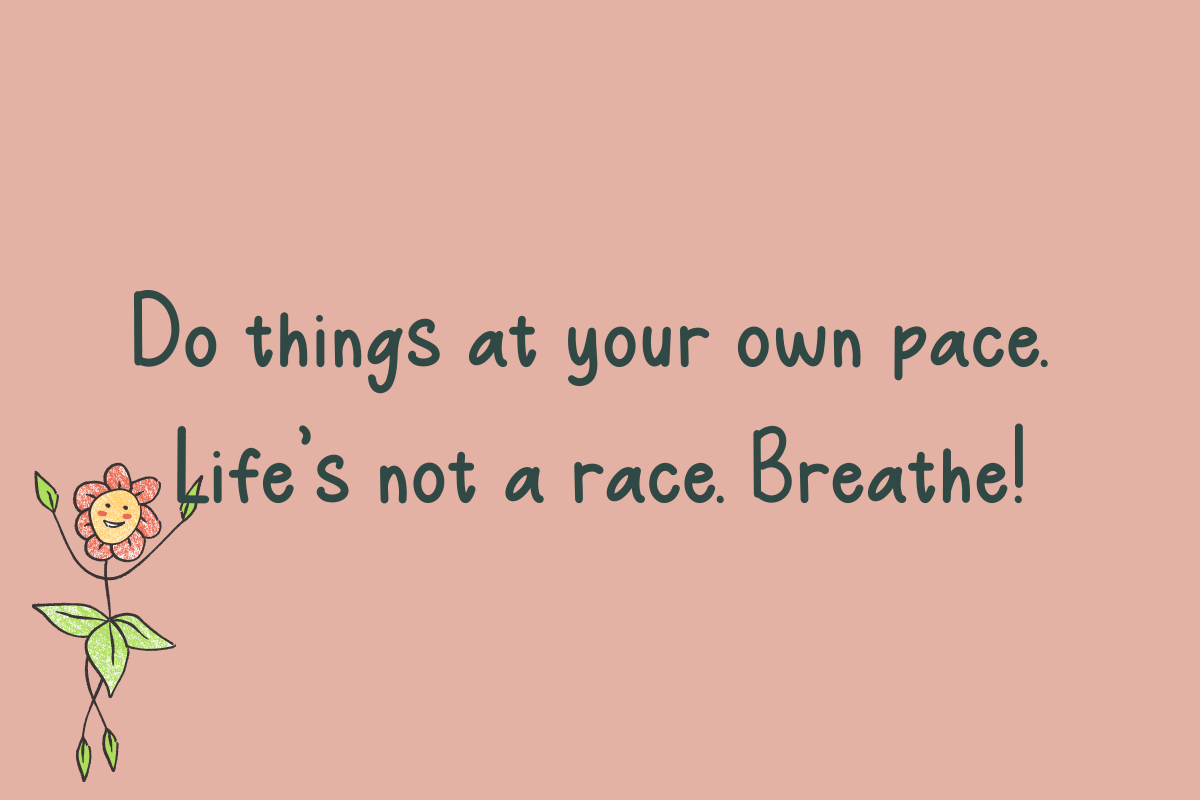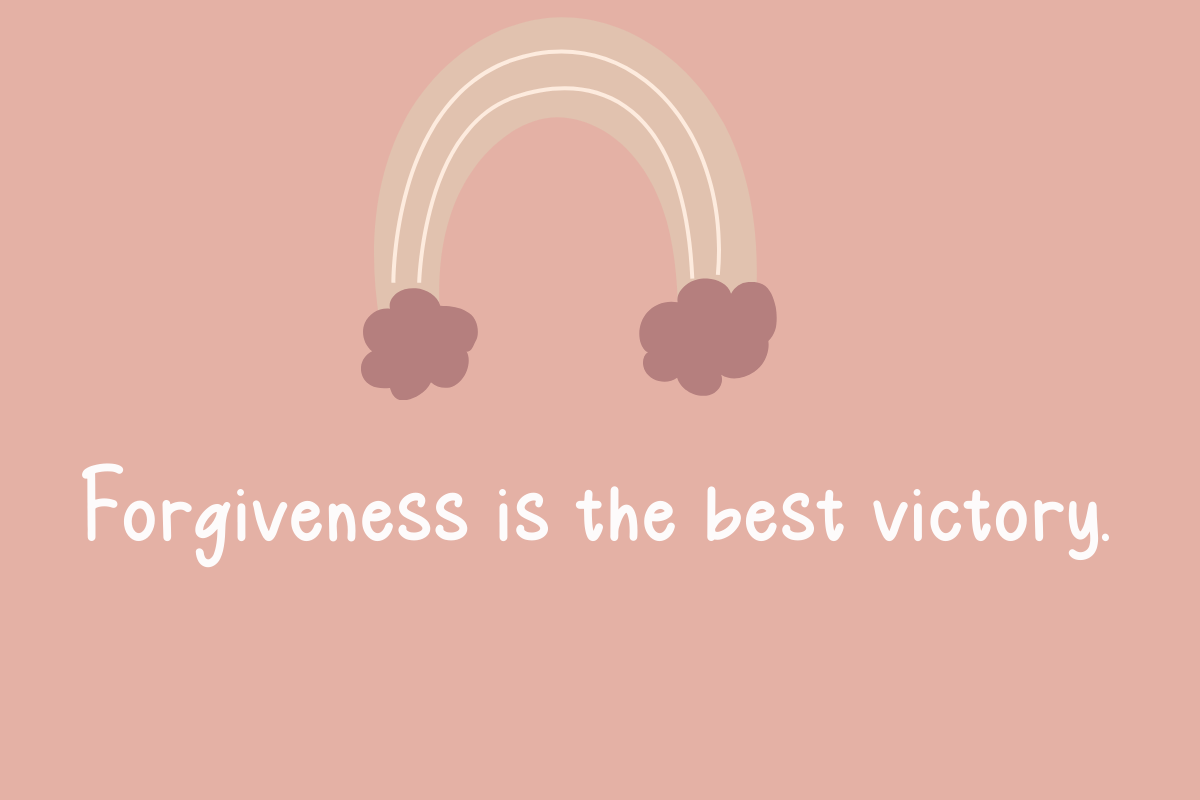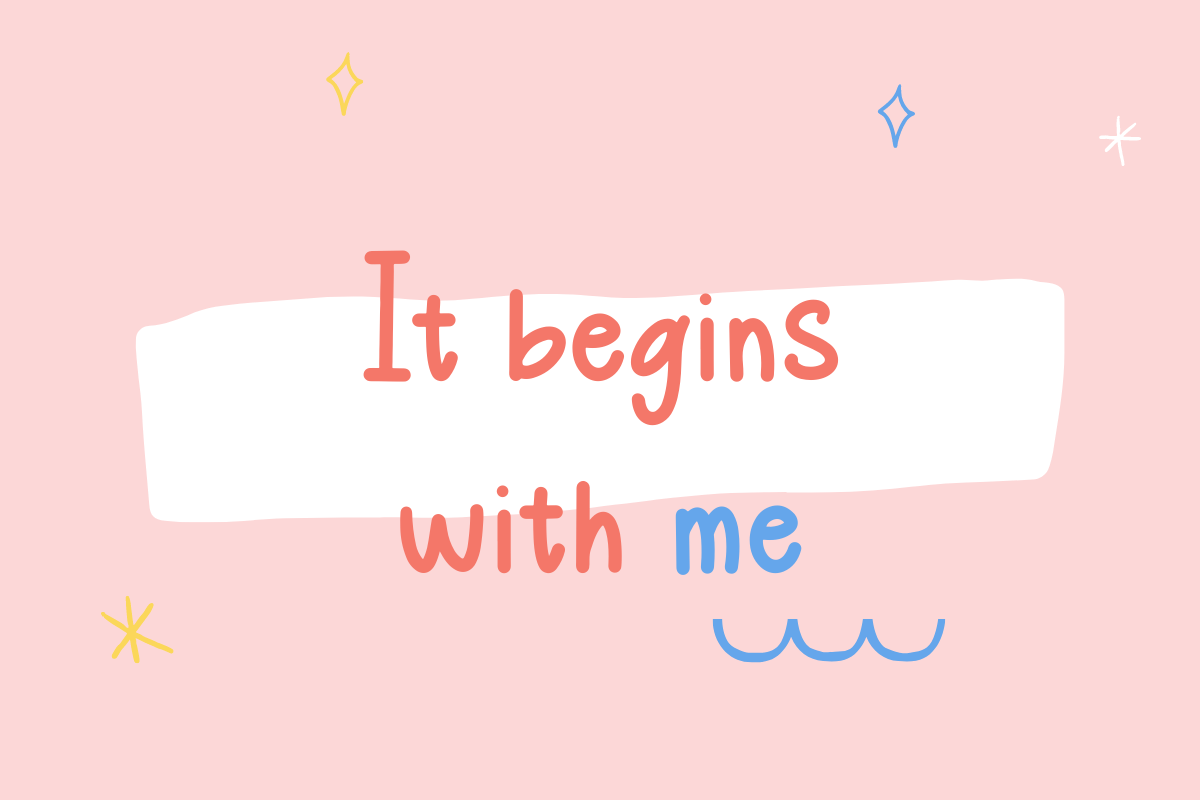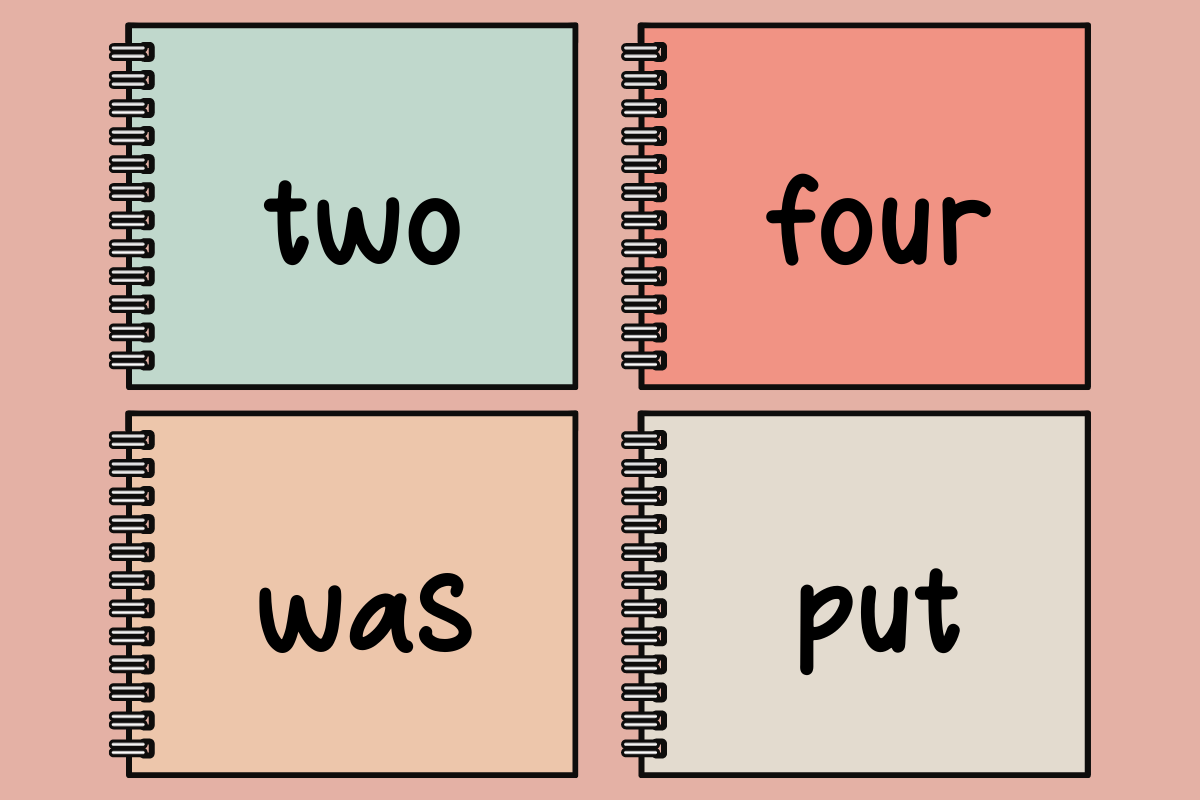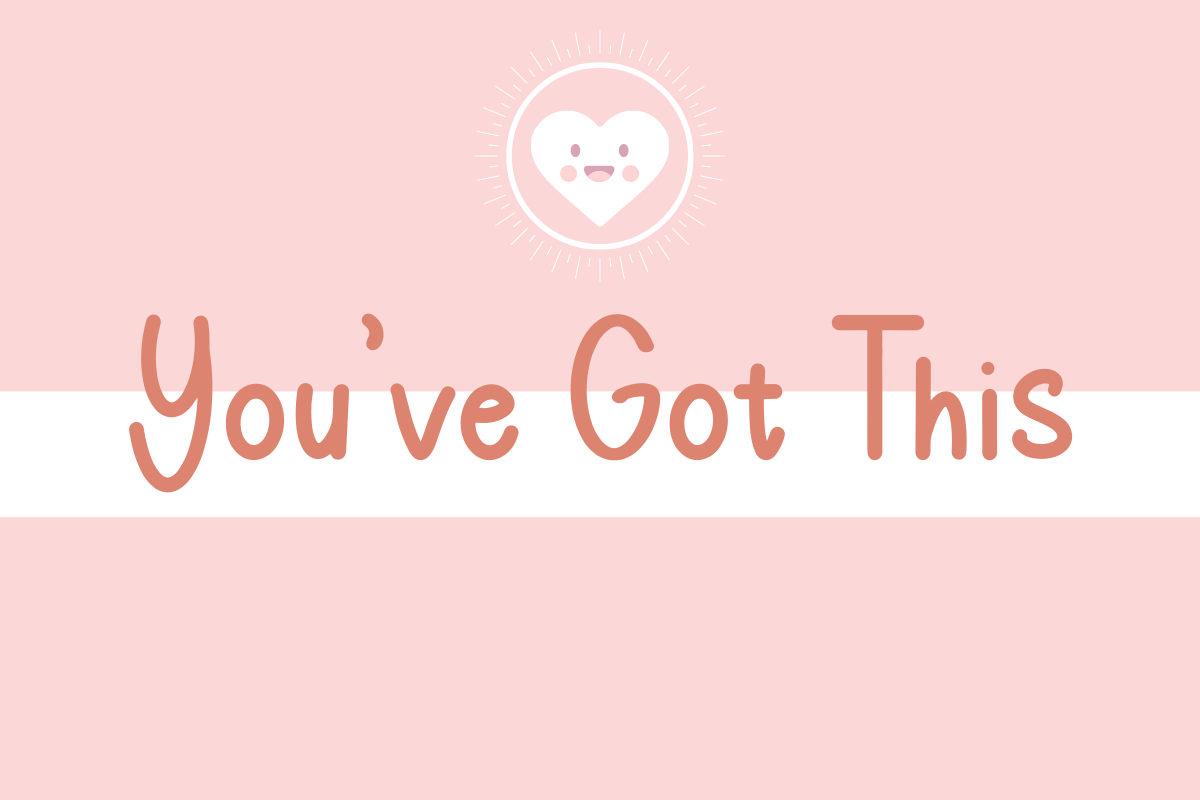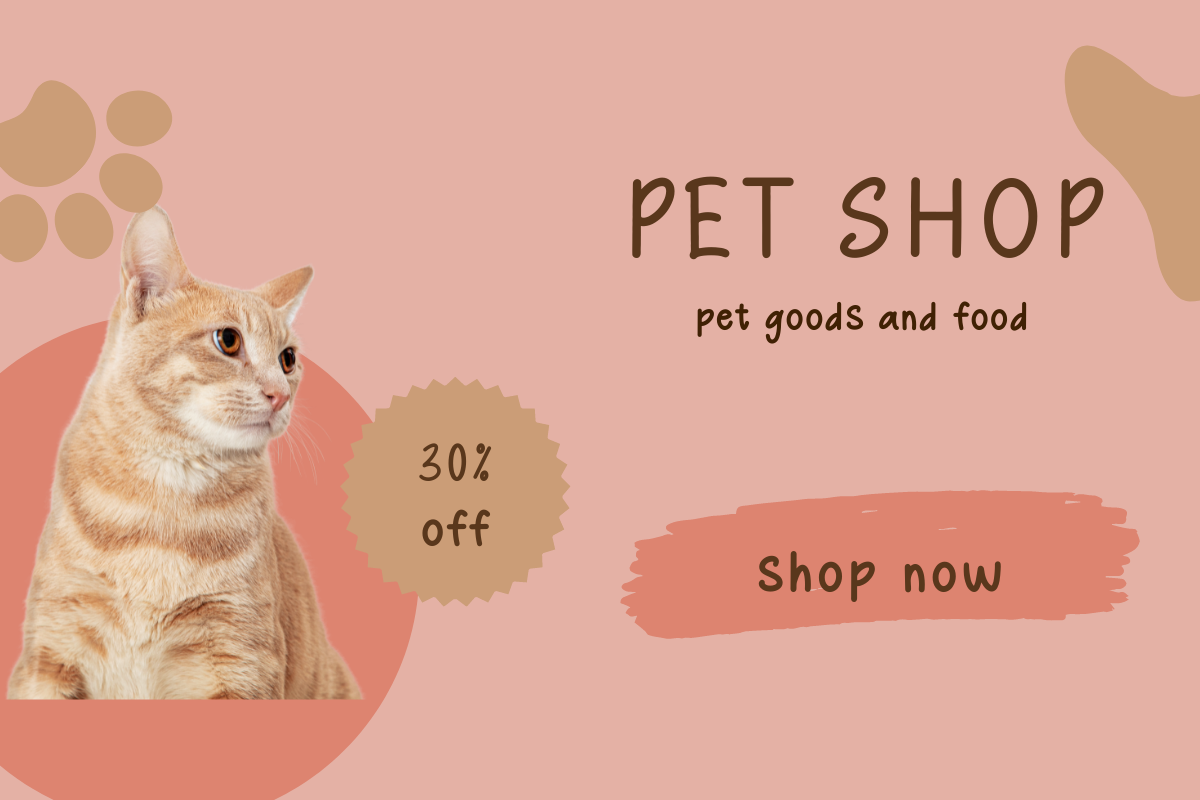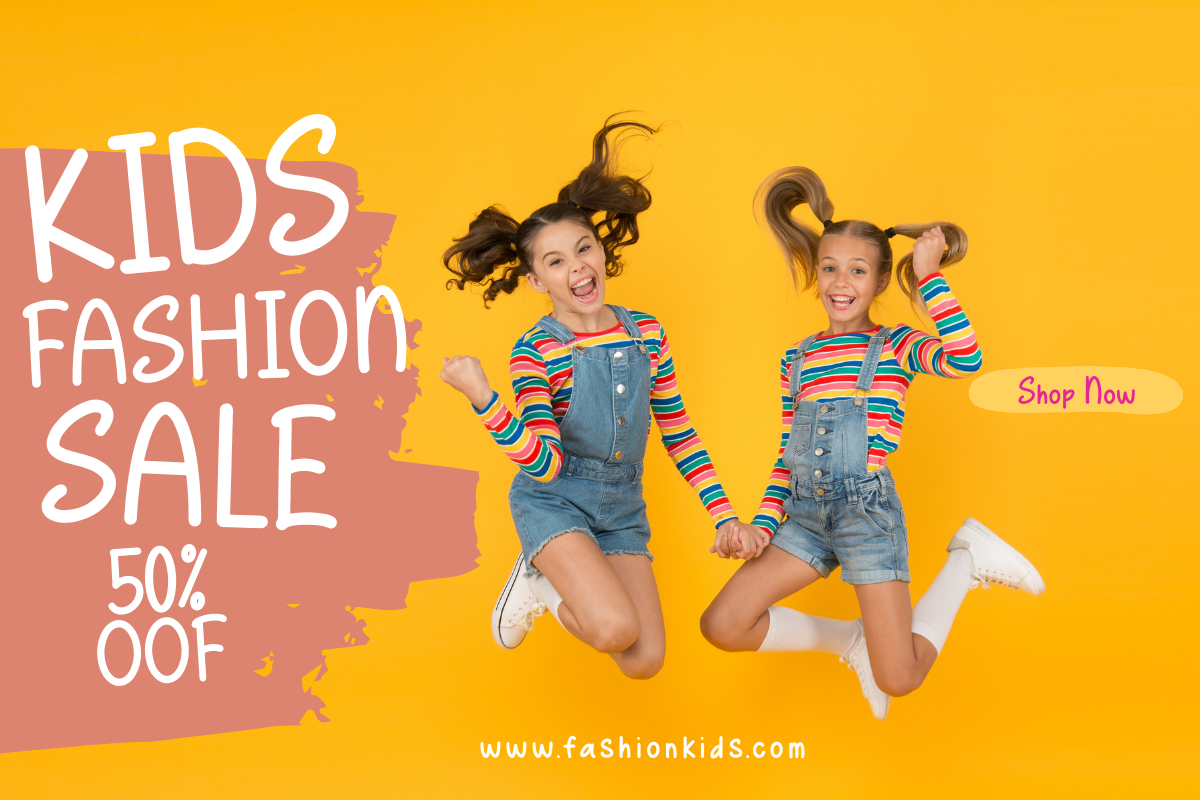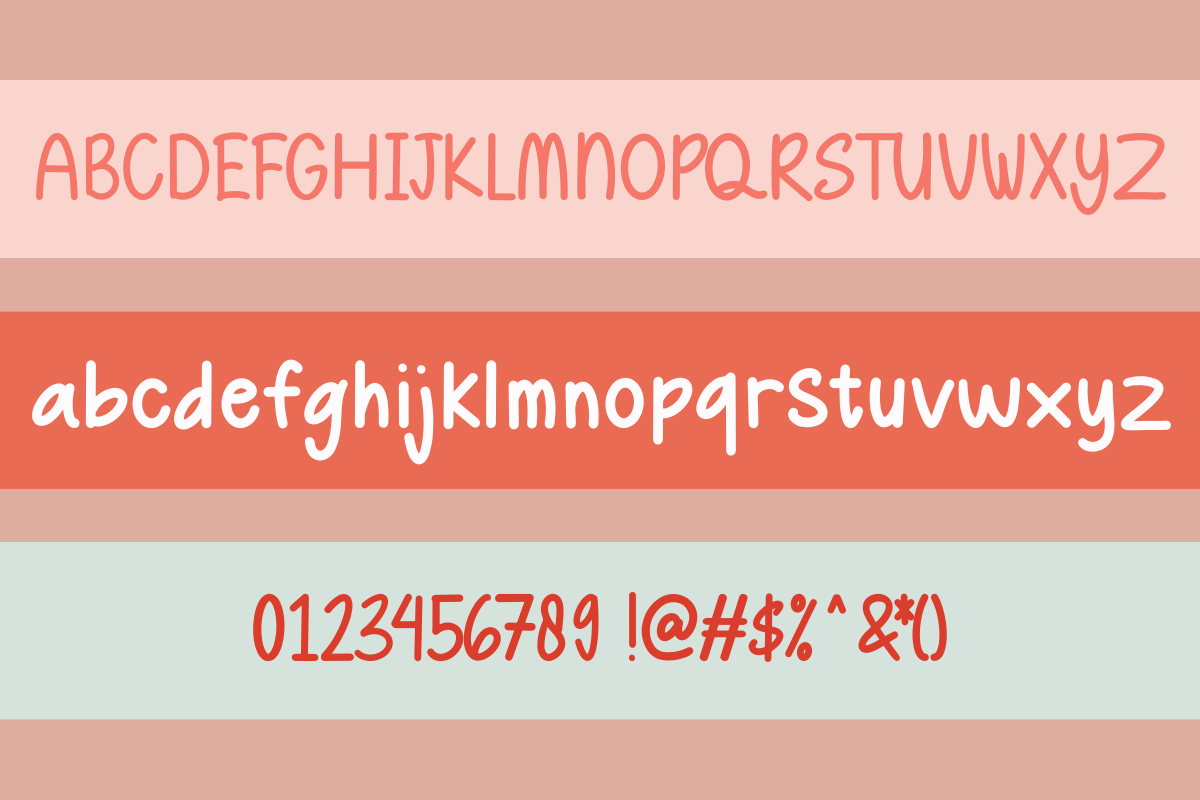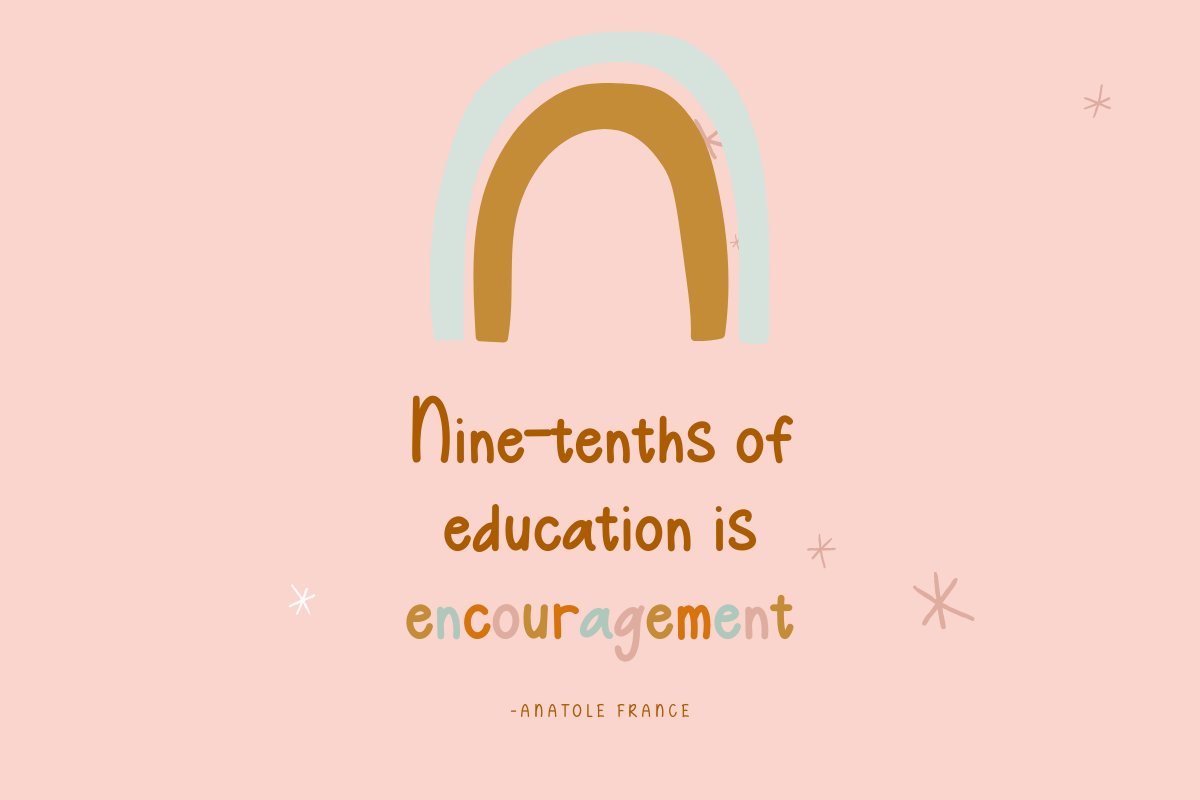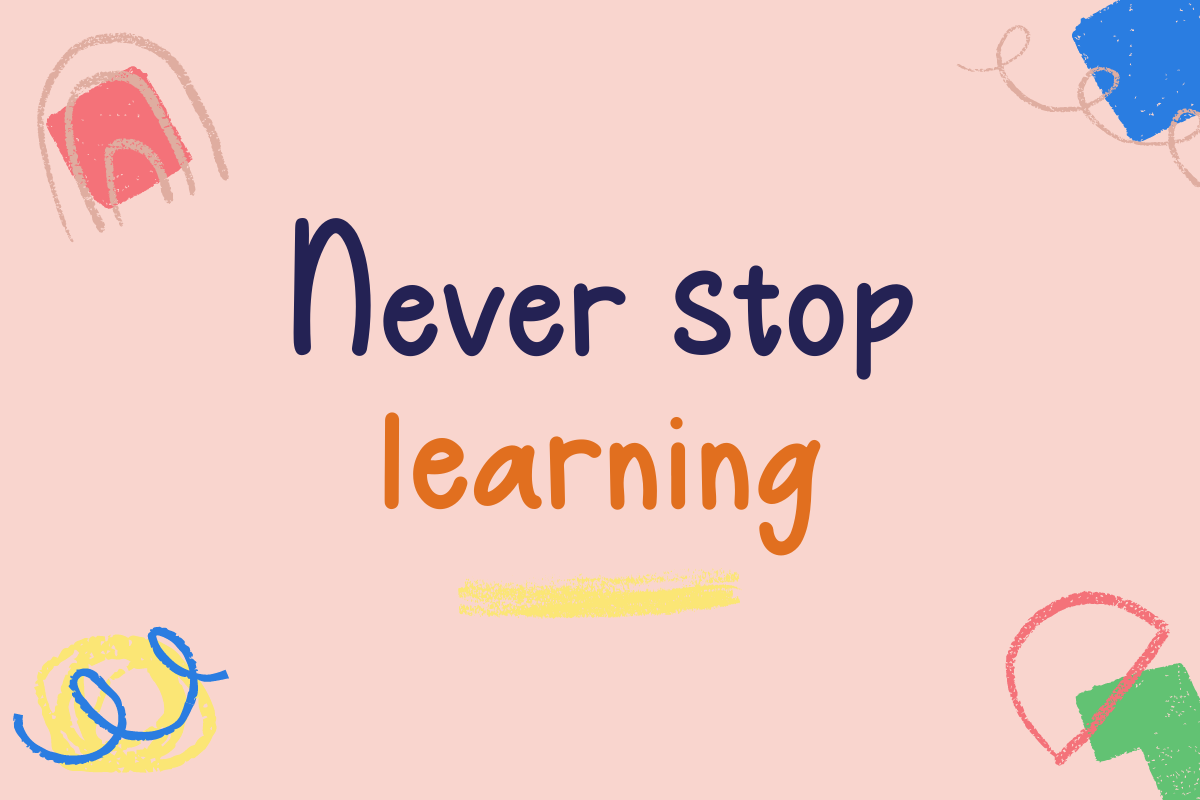
Barnie
This is my new font, it's called Barnie. This font is handwritten font. it's very suitable to be applied in your design, also it's perfect for logo, branding, title, social media post, advertisements, product packaging, product designs, label, photography, special event, web design, etc.
Barnie (Uppercase & Lowercase)
Numeral & Punctuation